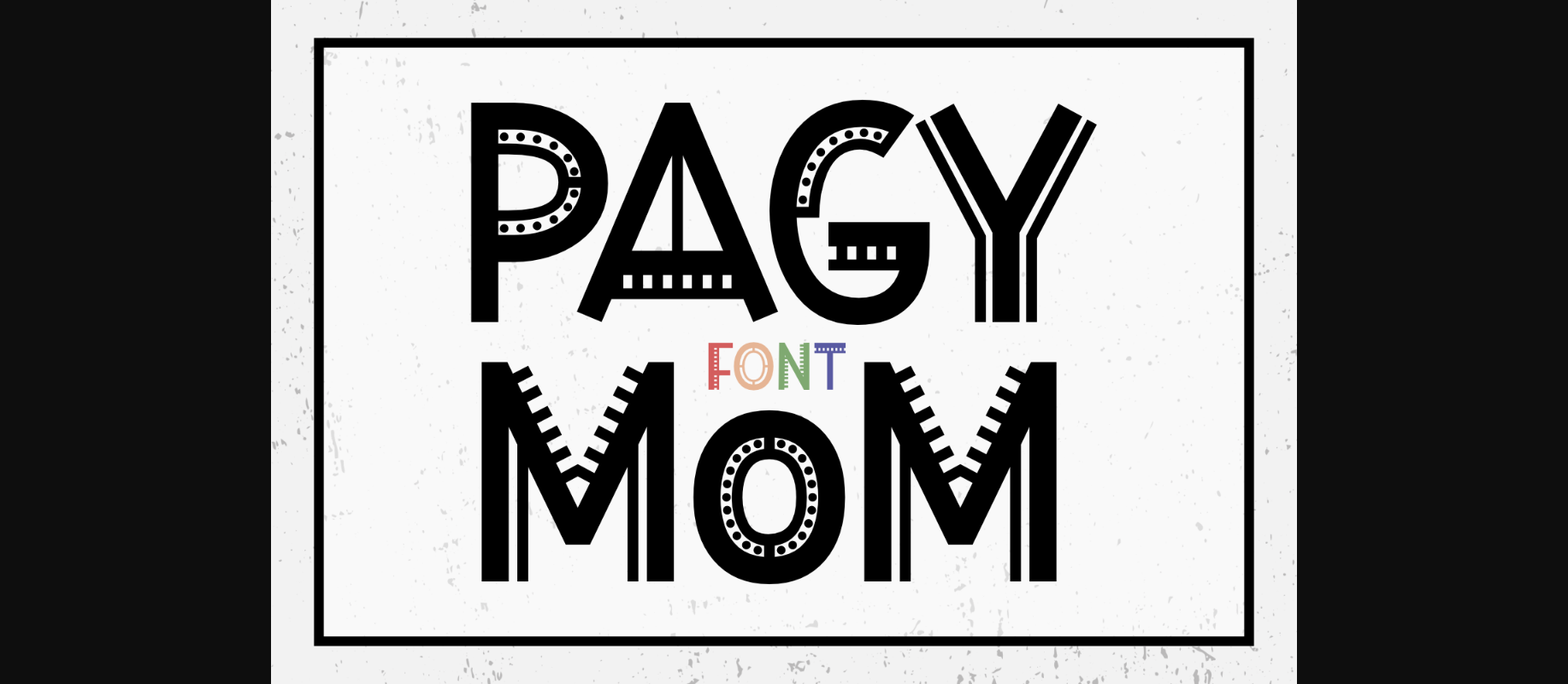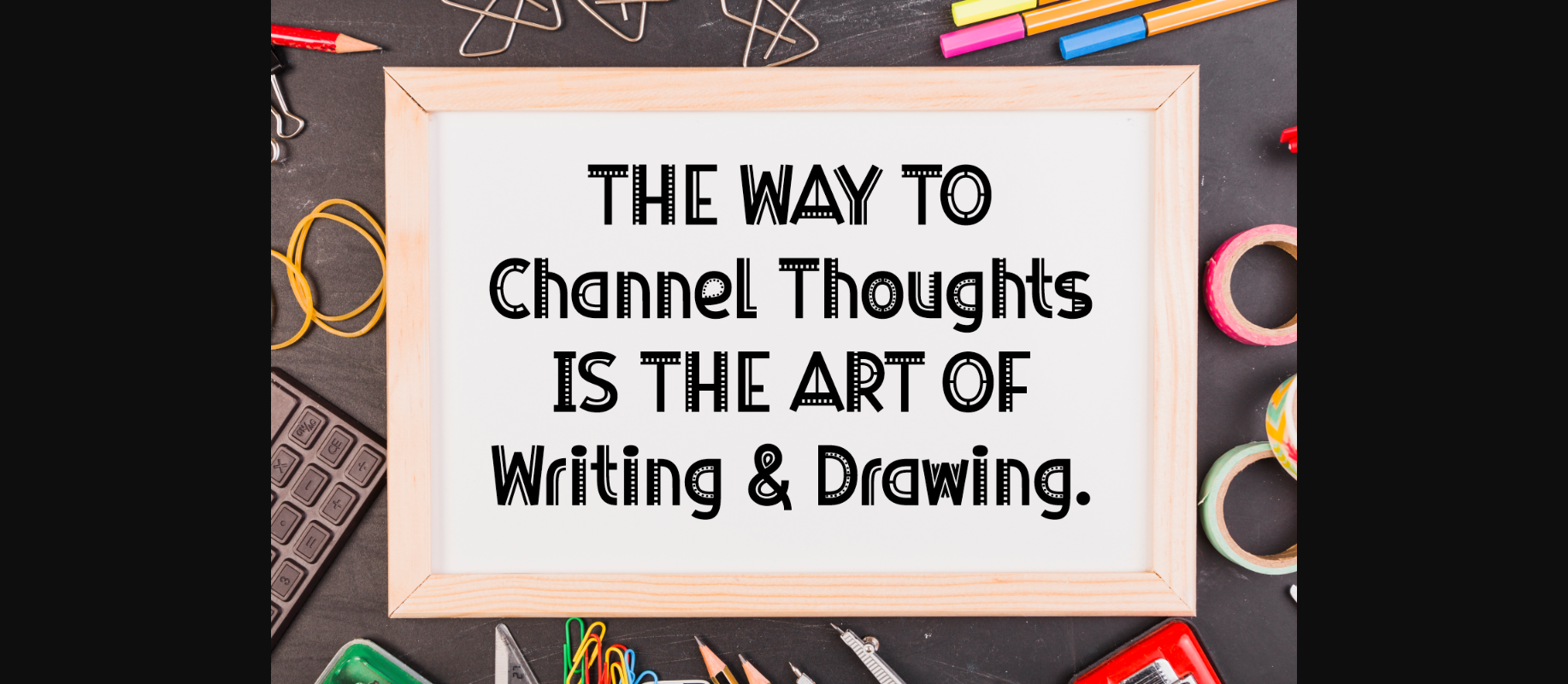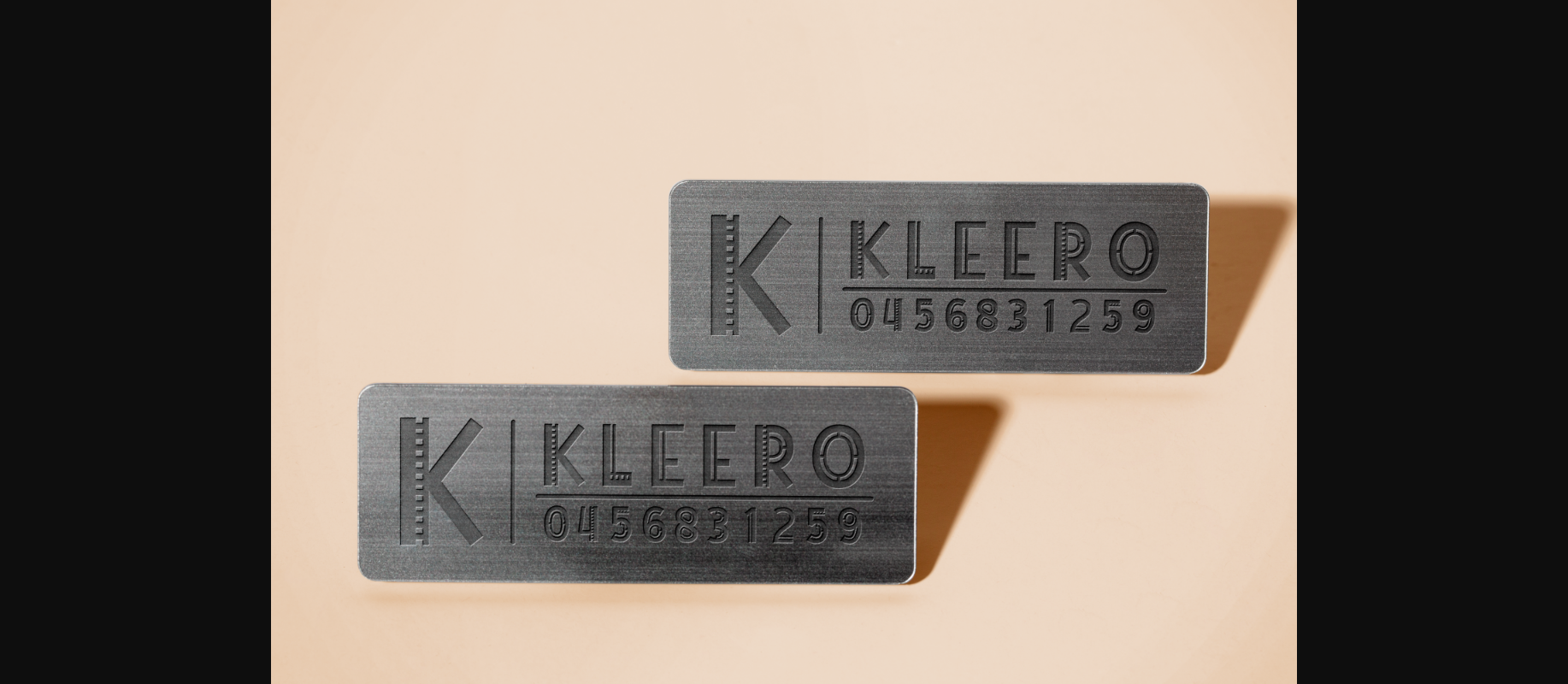
About Pagy Mom Font
Pagy Mom is truly one-of-a-kind, with a modern and avant-garde design that stands out from the crowd. The letters are bold and striking, with intricate details and unusual shapes that create a sense of intrigue and wonder. Its uniqueness makes it perfect for projects that require a strong visual identity